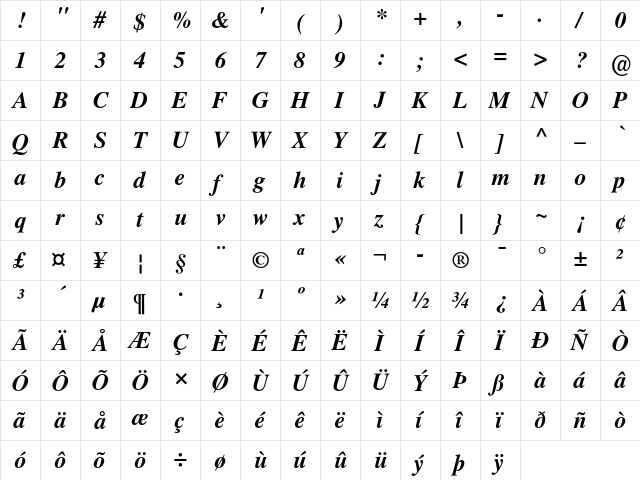
NimbusRomNo9L Bold Italic
| Foundry | (URW)++ Design & Development |
Design Context for NimbusRomNo9L Typeface
NimbusRomNo9L is a composed and adaptable typeface that performs quietly and consistently across a wide range of design contexts. The dynamic lean of this cut emphasises speed and emphasis in any layout. Its bold stroke weight gives it real presence on the page.
Pro Tip: Use NimbusRomNo9L for emphasis, pull quotes, and subheadings where its slanted energy can add rhythm to the layout.